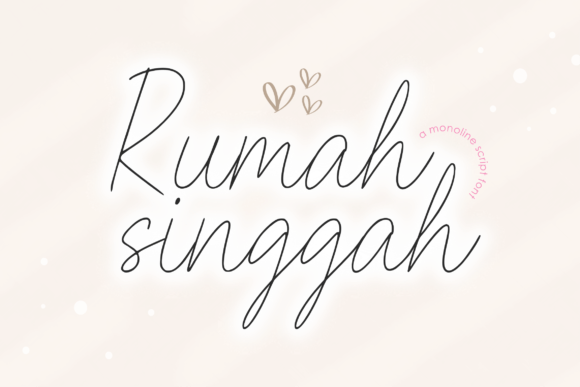
Introducing Rumah Singgah Font - a captivating script font family that exudes charm, character, and grace.
With its sweeping flourishes and elegant lines, Rumah Singgah is the perfect choice for designers seeking to create a distinctive and memorable visual impact. This font is an artistic masterpiece, intricately crafted with monoline strokes that dance across the page like a melody.
Picture yourself crafting breathtaking logos, effortlessly adding a touch of sophistication to your branding projects, or creating stunning product packaging that commands attention. Rumah Singgah's allure extends beyond the digital realm; it's an exquisite choice for wedding invitations, injecting a timeless beauty into your special day.
Type a few words using Rumah Singgah and watch them transform into an enchanting symphony of letters. Its natural flow and delicate curves add a personal touch to any project, making your words resonate with warmth and authenticity. Whether gracing the pages of magazines, captivating social media audiences, or simply adorning text above a background, Rumah Singgah elevates your words and leaves a lasting impression.
Embrace the magic of Rumah Singgah and unlock a world of creative possibilities. Its versatility knows no bounds, harmoniously blending with a multitude of design styles and themes. From whimsical and playful projects to sleek and modern designs, Rumah Singgah seamlessly adapts, enhancing the visual impact of your creations.
Let your imagination soar as you explore the endless potential of Rumah Singgah. This font is not just a collection of letters; it's a gateway to artistic expression, inviting you to infuse your designs with a touch of enchantment.